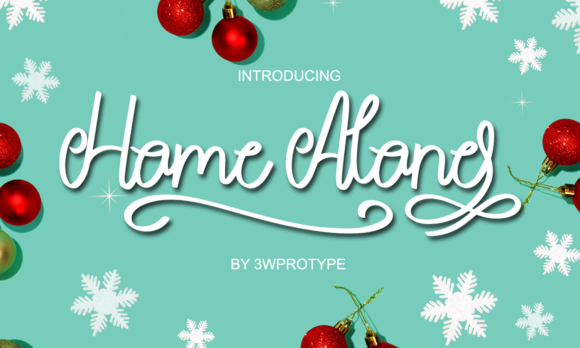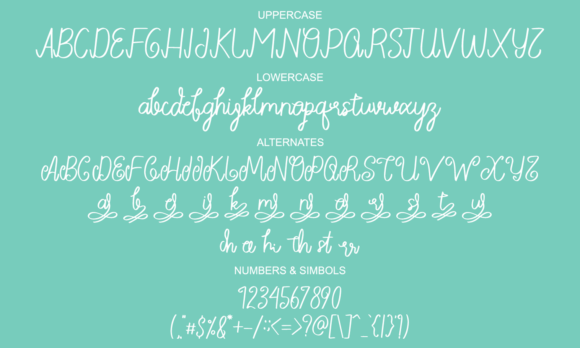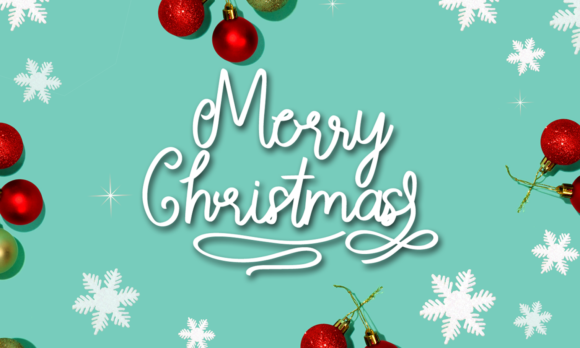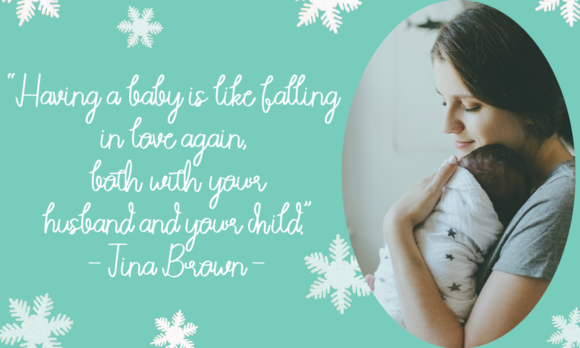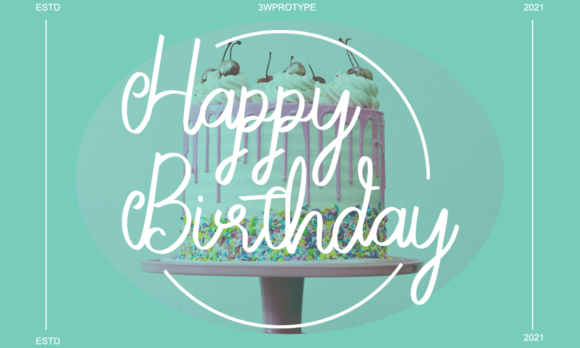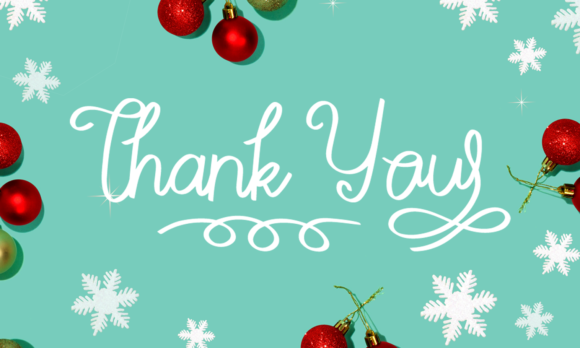
Home Alone Font
About Home Alone Font
Introducing Home Alone Script Font. This typeface is fun and casually made with natural handwriting. This font is suitable especially for logos, shops, and various other formal forms such as invitations, labels, magazines, books, greeting/wedding cards, packaging, fashion, makeup, stationery, novels, labels, or anything else.